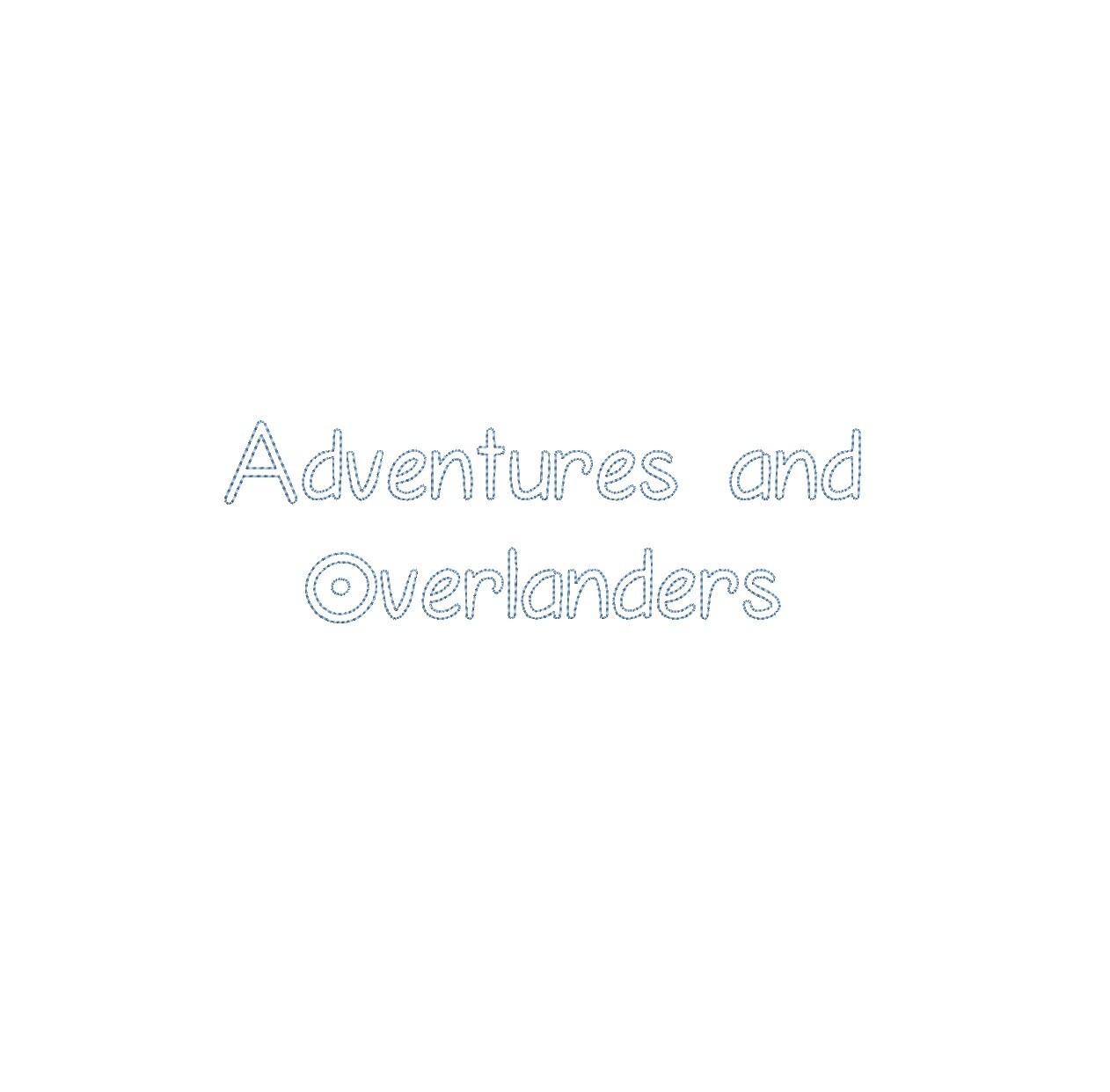
Elevate your embroidery game with Adventures & Overlanders Bean Stitch Outline ESA font. Tailor-made for Wilcom Studio e4.5.6 and Hatch 3 versions and up, this font guarantees seamless compatibility, enhancing your design endeavors. The intricate bean outline adds depth to your creations, while the ESA format ensures precision and ease during digitization. Transform ordinary projects into extraordinary masterpieces with the Adventures & Overlanders Bean Stitch Outline ESA font. Unleash your creativity without limits today.